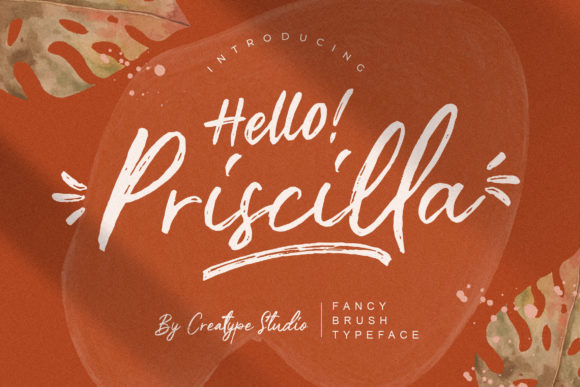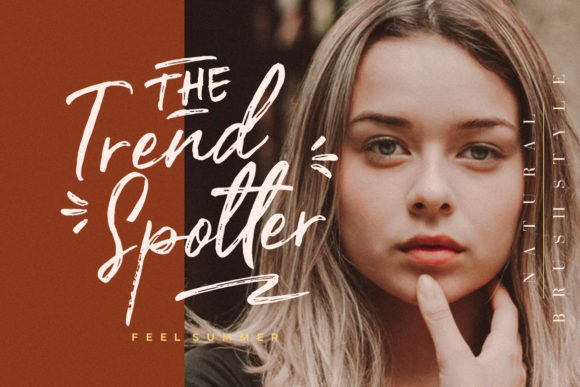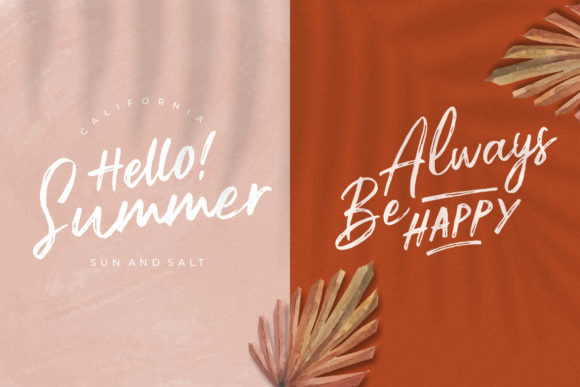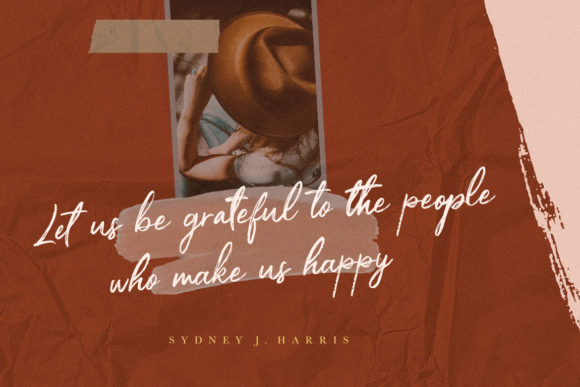
Priscilla Font
About the Priscilla Font
Unleash your creativity with Priscilla Font, a versatile font perfect for a wide range of applications. Priscilla is a fancy brush style script font. This font’s versatility will appeal to a wide range of crafty ideas, from letterheads and titles, to stationery.
Priscilla’s expressive brush strokes make it ideal for headlines, short text blocks, and branding elements where a touch of handcrafted elegance is desired. It works particularly well on invitations, packaging for luxury goods, or short social media posts. However, its decorative nature makes it unsuitable for body text or UI elements; extended use would severely impact readability.
Consider pairing Priscilla with a clean sans-serif like Montserrat for a modern contrast, or a classic serif like Garamond for a more traditional feel. For a playful juxtaposition, a geometric sans-serif such as Futura could also work well. The key is to balance Priscilla’s flamboyant personality with a complementary typeface that ensures clear legibility in supporting text.
Priscilla’s overall personality is sophisticated yet approachable; elegant but not overly fussy. It conveys a sense of refined creativity, making it perfect for brands focused on artistry, craftsmanship, or premium products.